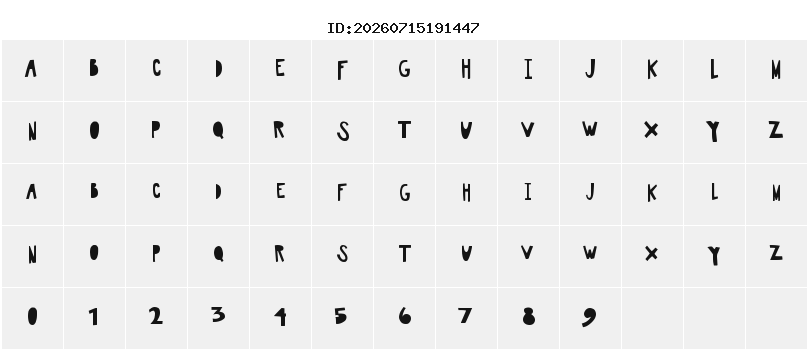
AwesomePlay Preview
• Font Name: AwesomePlay
• Designer: Xerographer Fonts Max Infeld
• Manufacturer: Xerographer Fonts
• Description: Made at Xerographer Studios in Santa Fe, NM
About AwesomePlay.ttf
AwesomePlay.ttf is a modern, elegant sans-serif font designed for ultimate readability and visual harmony. Perfect for branding, headlines, web design, and print materials.